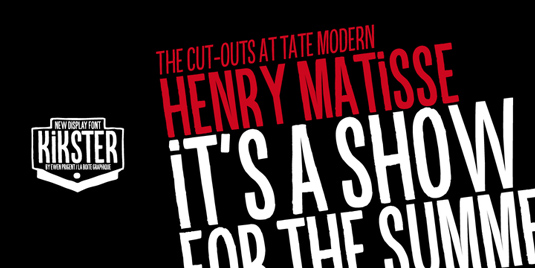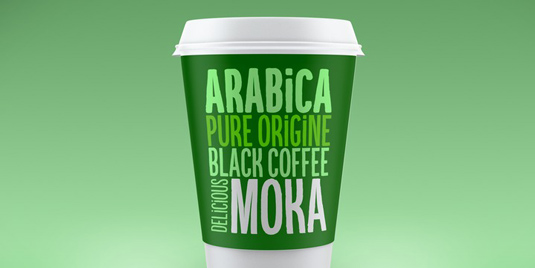
Font of the day: Kikster
Every day we showcase the best fonts on the web. Today it's Kikster by Ewen Prigent.
Kikster by Ewen Prigent
This cool, handmade font was created by graphic designer Ewen Prigent. Under the signature of La Boîte Graphique, Prigent has developed a number of type designs, Kikster being one of our favourites.